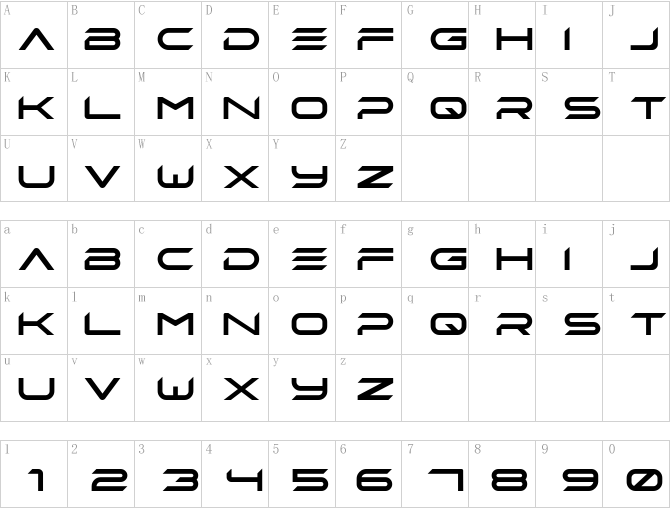
DIX is a cool English font created by Dumpatom, a designer based in Shanghai, China. The name of the font is extracted from the initials of several keywords: Evolution, Design, Innovate and Xerox.
The font has the following characteristics:
A. Extreme aesthetics in the golden ratio
The text is focused on simplification, so detail and space are important factors in the aesthetics. Since the individual letters do not have too many elements that need to be used, each character needs to be extreme. Clean, simple and beautiful. These are my basic requirements for each character, so I invoked the famous “Golden Ratio” in the structure of the character presentation, i.e., creating the character in a “Golden Rectangle”. It is because each character follows the aesthetics-consistent, so in the practical application of the good visual effect.
B. Distinctive missing corners
When it comes to technology and the future, people associate it with robustness, dynamism and rapid development. Therefore, I want to design a font that reflects these characteristics, which can eventually be applied to the brand and various promotional titles to unify the brand concept and spirit. On the basis of ensuring the beauty of the characters, the cut corners are processed, and the sense of speed it presents, and the sense of technology generated by the sense of speed, can well reflect the user's idea of leading the trend of the times.
C. Smart Rounded Corners
In traditional writing, Chinese writing has always been limited to the field character grid, while Latin writing has always been trying to break through the boundaries. How to make the Latin characters confined in the golden rectangle and get the aesthetic unity - - became the biggest difficulty in this font design. Therefore, when I was looking for some graphic shapes with modernity, I hoped to use rounded corners to weaken the sharpness of the characters themselves, such as A N V Z, a typical angular letter. For letters like C E S P, which do not have angular features, I kept their basic shape while incorporating corner-cutting elements to give them a more spontaneous look and feel and enhance the rhythm of the letters.